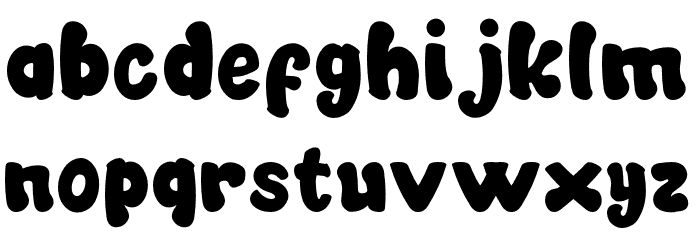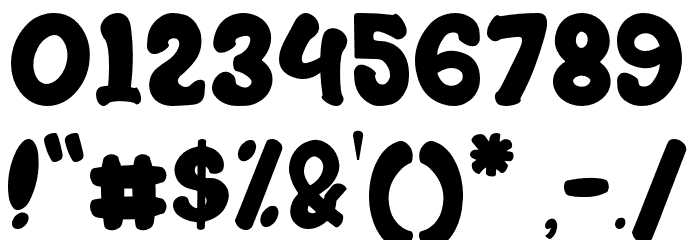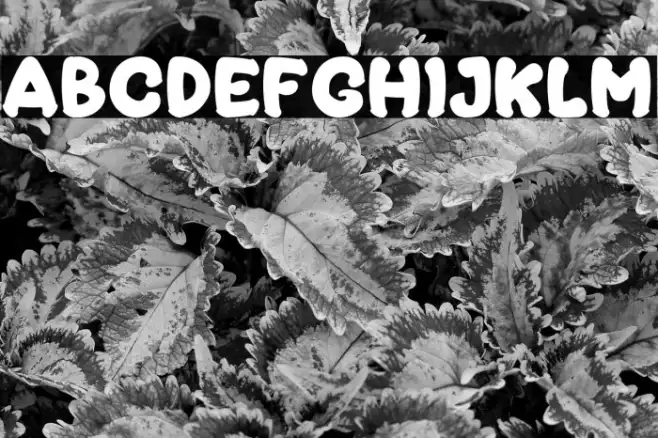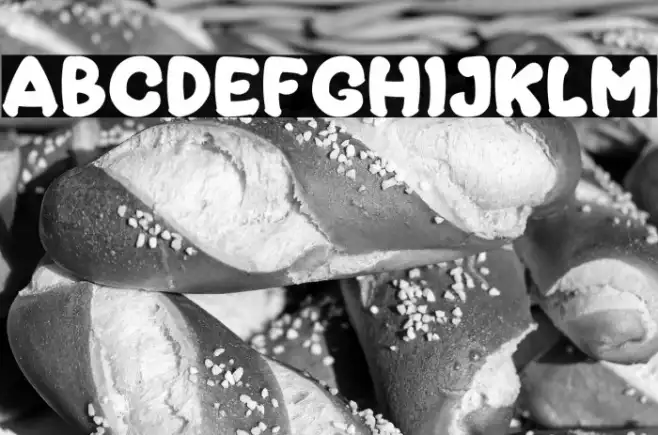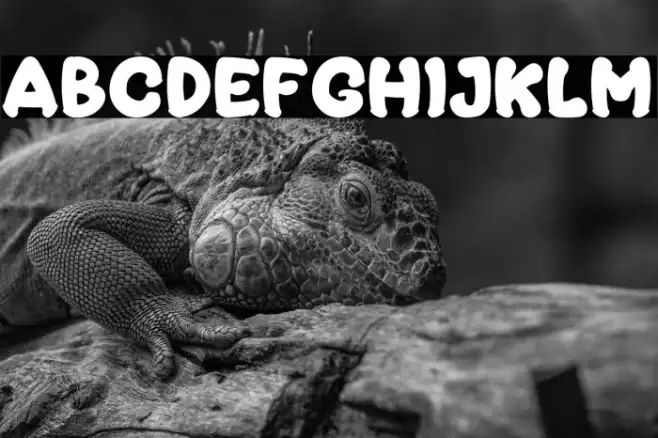
MoccaSweet Font
This playful and bold font features thick, rounded characters that exude a sense of fun and creativity. The letters are designed with a smooth, flowing style that gives them a whimsical and friendly appearance. Each character is distinct, with a consistent stroke width that adds to the font's cohesive look. The numbers and special characters maintain the same playful aesthetic, making them perfect for projects that require a touch of personality. The font's overall design is both eye-catching and approachable, making it suitable for a variety of creative applications.
A bold, playful font with rounded, whimsical characters.
- Font: MoccaSweet
- Proposed Projects: Ideal for children's books, playful branding, party invitations, and creative posters.
- Overall Style: Playful, Whimsical